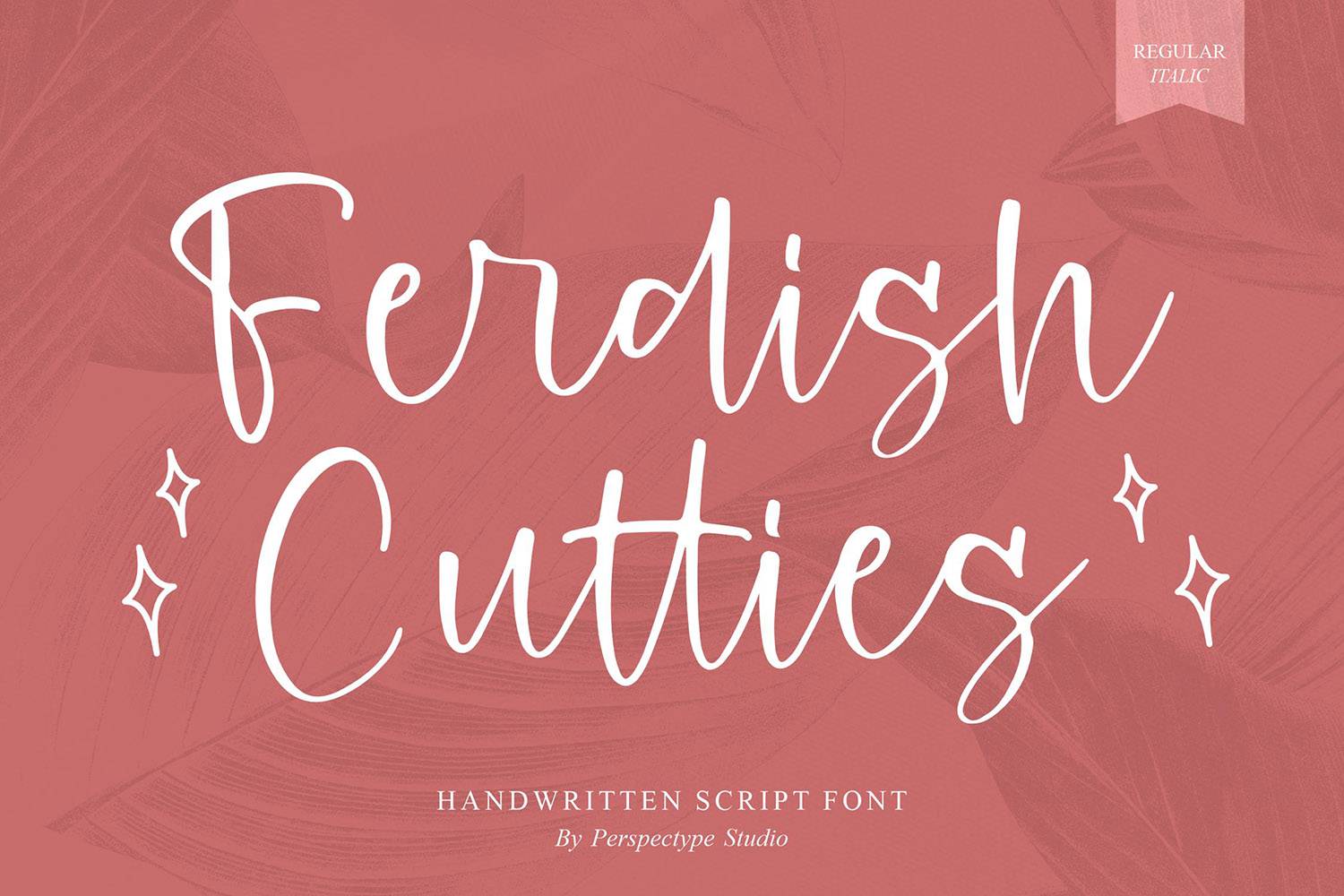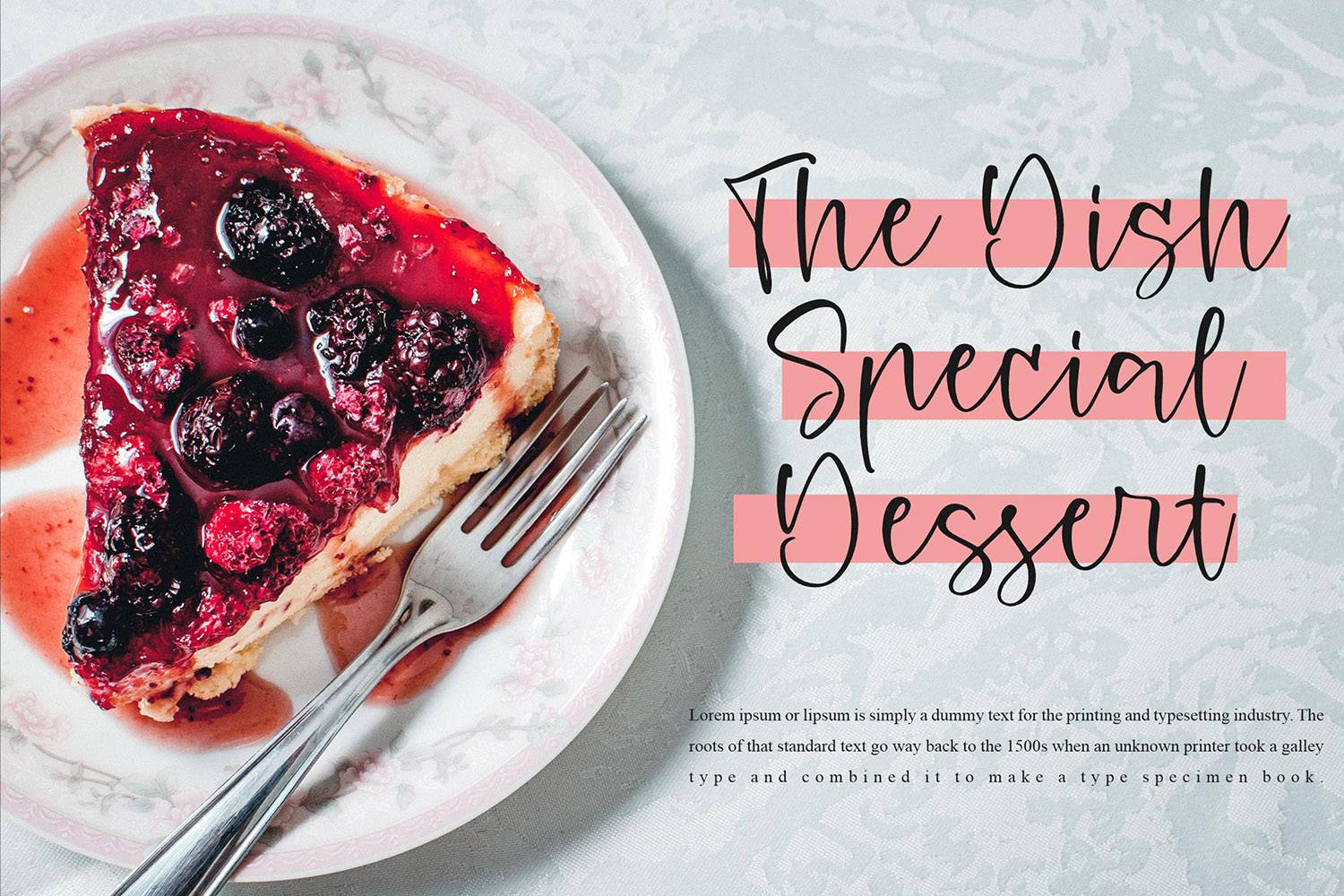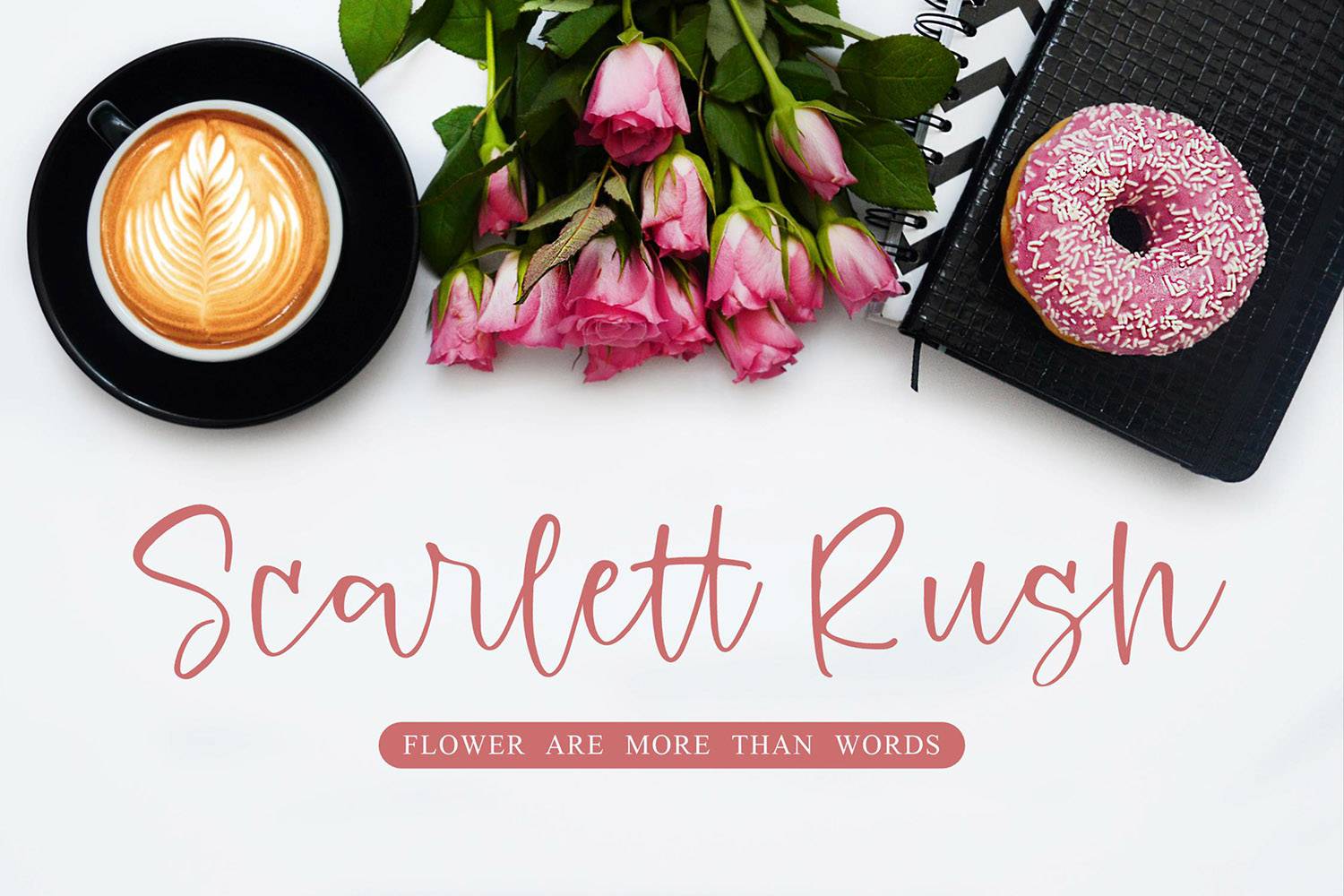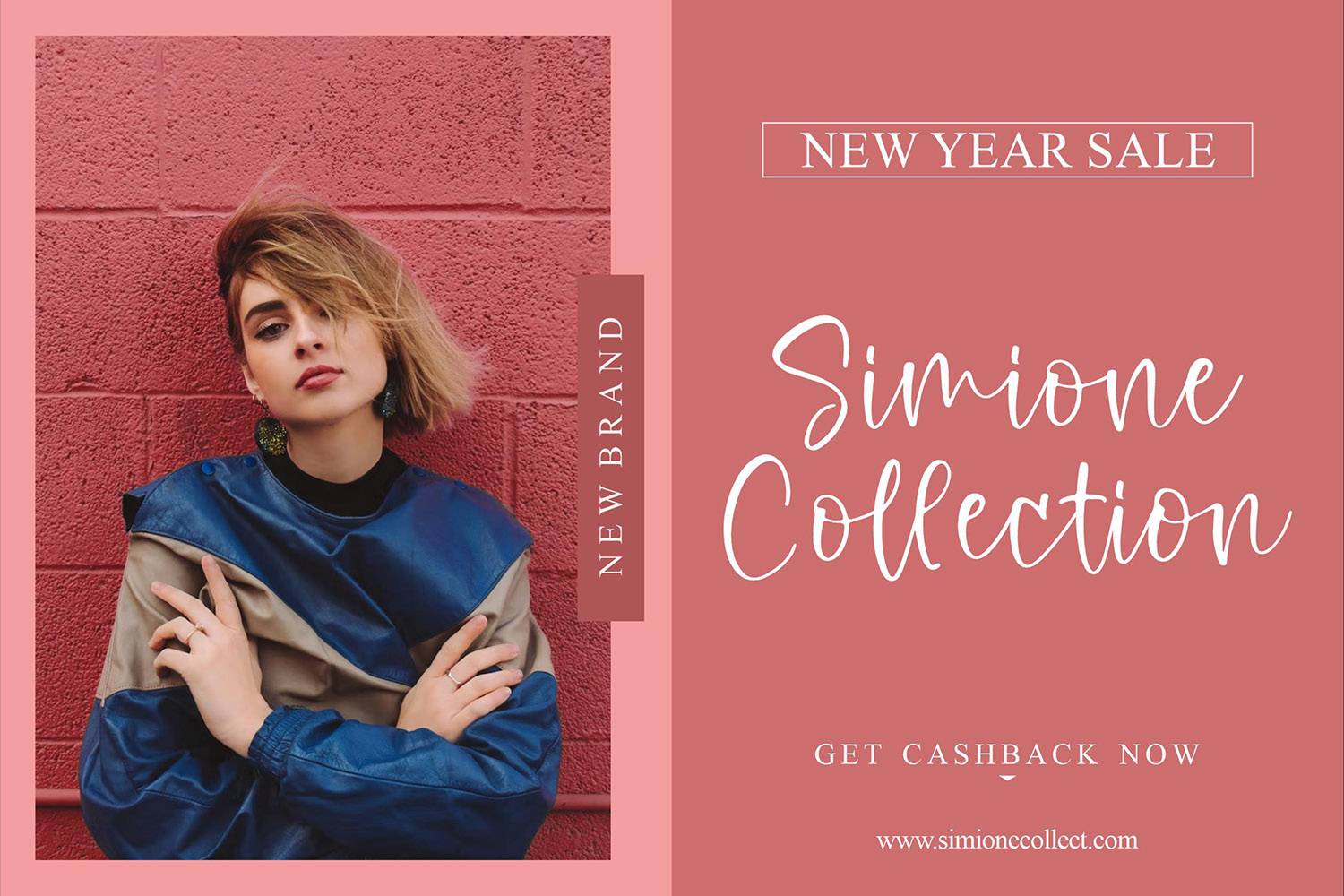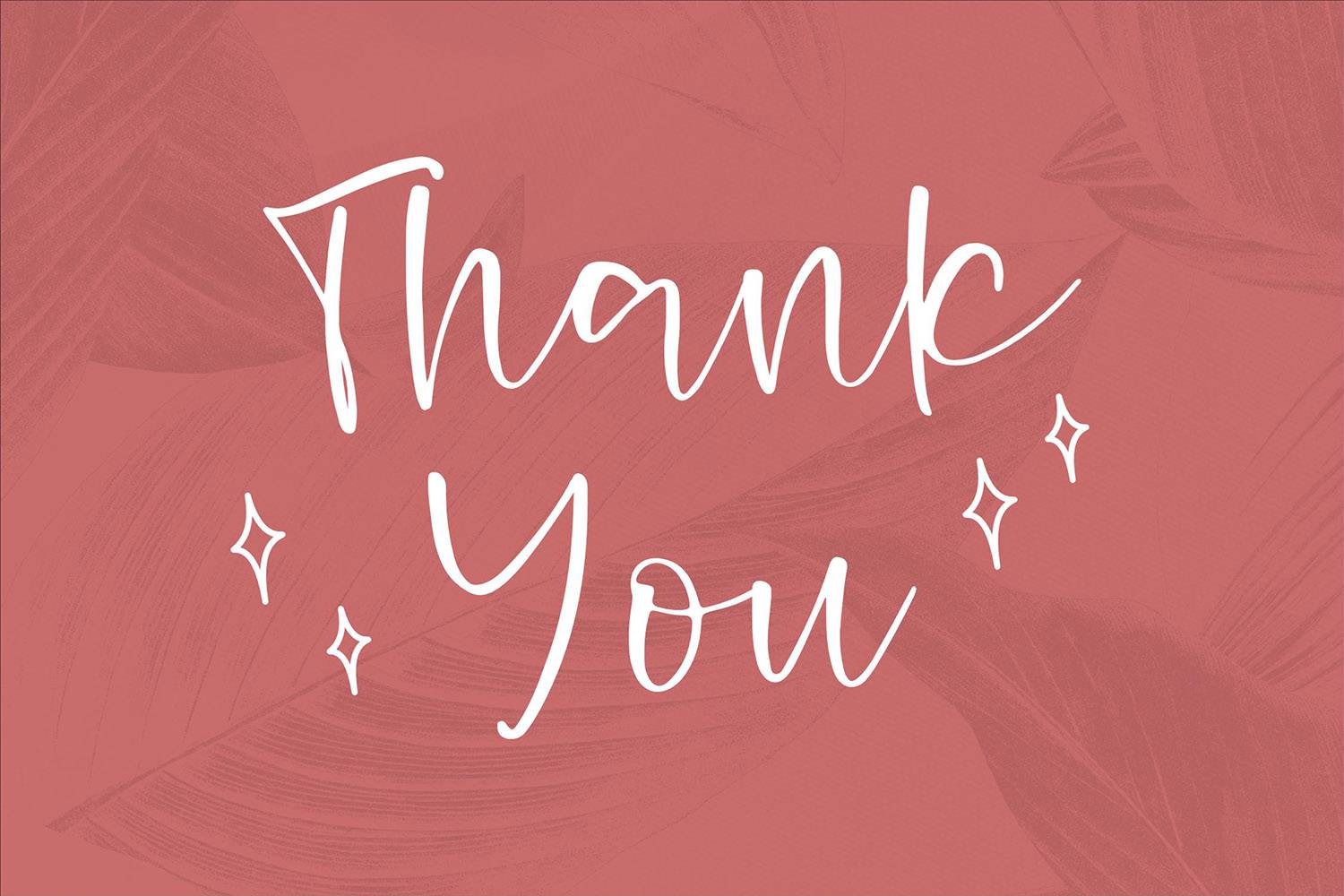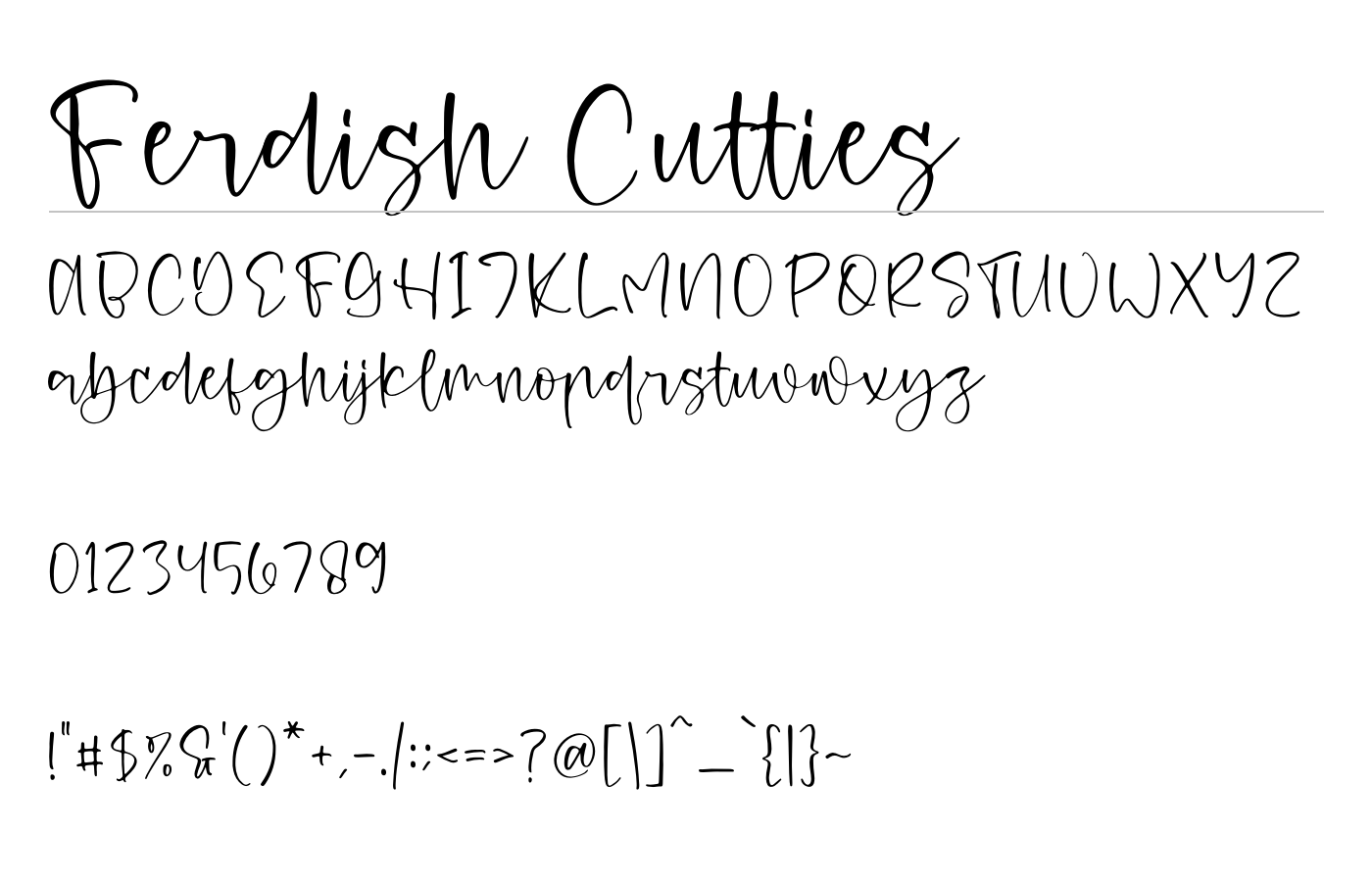
Ferdish Cutties is a delicate, handwritten script font with a playful and casual vibe. Its thin strokes and irregular, flowing letterforms create an inviting, personal feel, making it perfect for creative projects, invitations, and branding that want to evoke warmth and charm. This font works well in designs seeking a friendly, approachable touch without sacrificing elegance.
Ferdish Cutties Font
About Ferdish Cutties Font